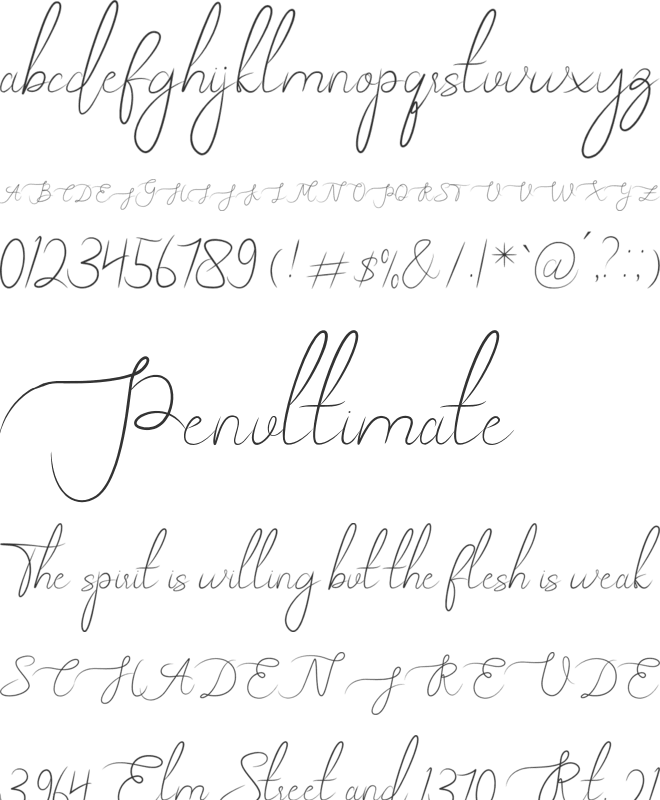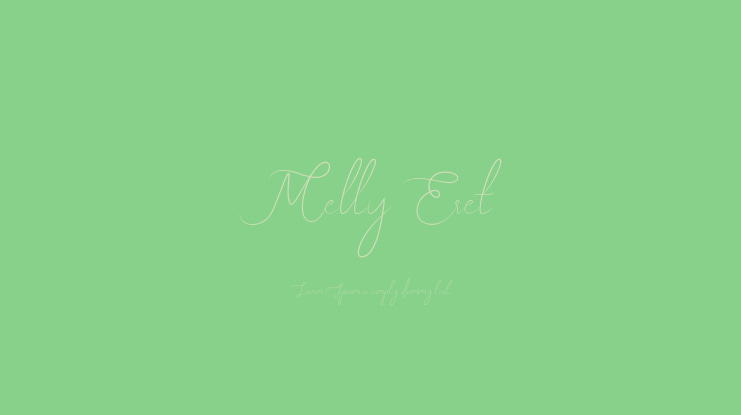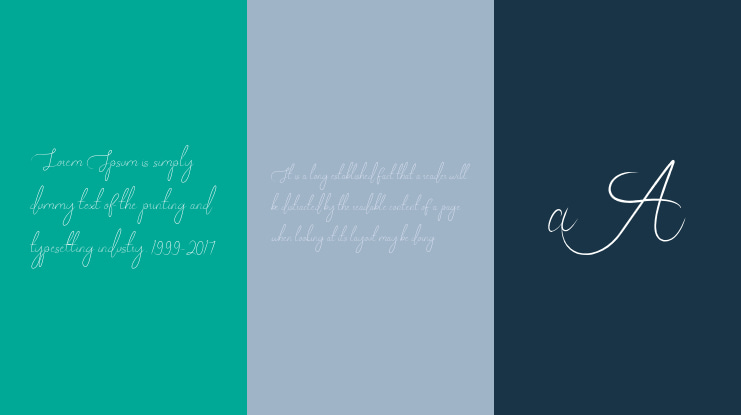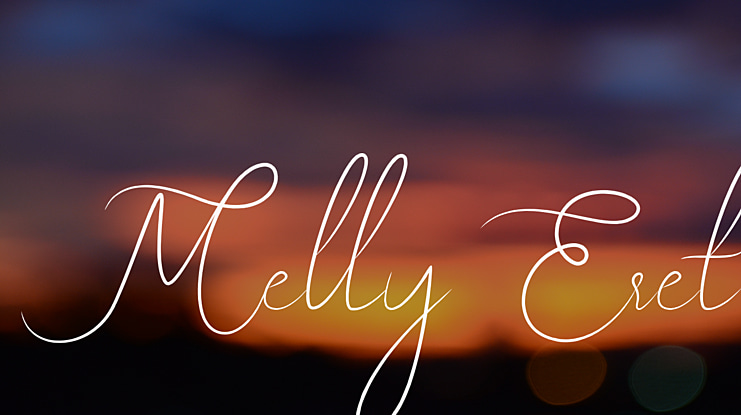
Melly Eret Font
Star Studio
Melly Eret is a light, beautiful, crème de la crème modern calligraphy font with playful letters.
It's perfect for branding, logos, wedding invitations, and cards. https://www.creativefabrica.com/product/melly-eret/ https://thehungryjpeg.com/product/3524886-melly-eret